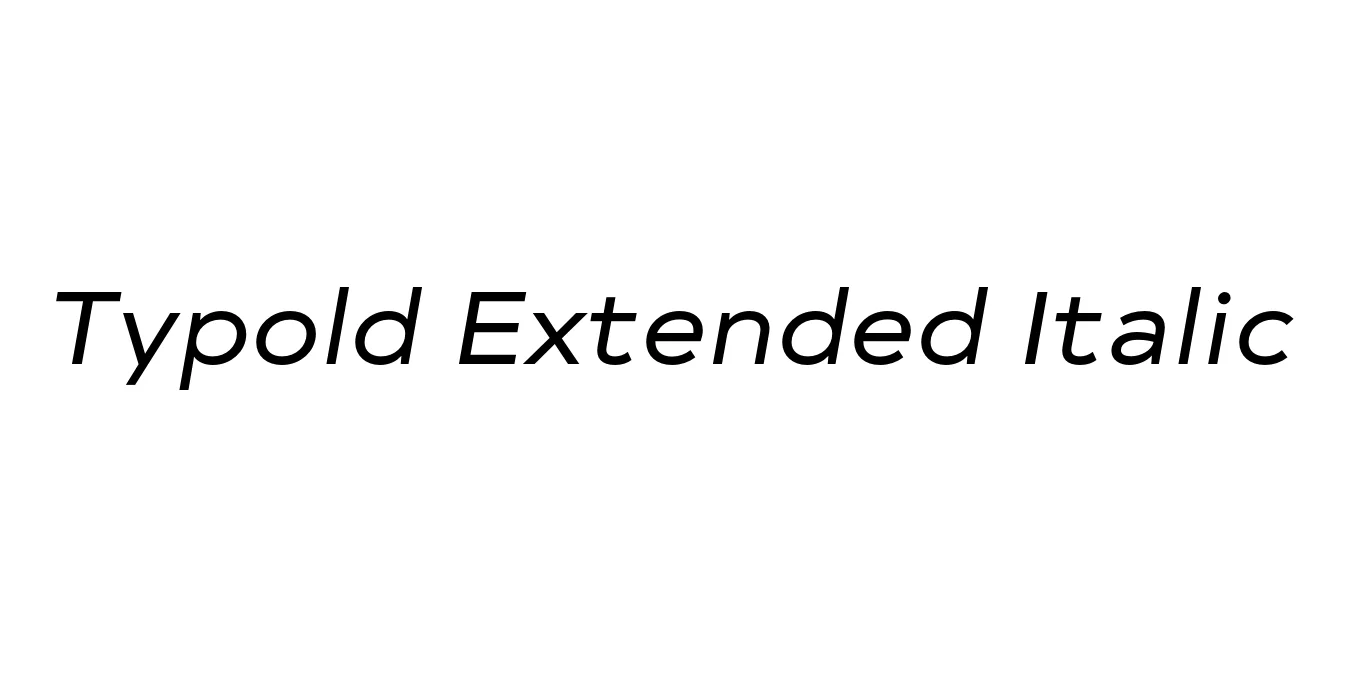
Typold Extended Italic
Designed by Jonathan Hill
Typold Extended Italic is a contemporary sans-serif typeface designed by Jonathan Hill and published through The Northern Block foundry. It represents a modern refinement of the geometric sans-serif genre, focusing on technical precision and geometric clarity. The "Extended" width provides a sense of luxury and space, while the italicized slant adds a dynamic, forward-moving energy that is both sophisticated and highly legible in various digital environments.
This font was developed as part of a larger, versatile family aimed at meeting the demands of high-end corporate branding and modern interface design. By balancing mathematical construction with subtle humanistic touches, Typold Extended Italic offers a distinctive aesthetic that excels in large-scale headlines and editorial layouts. Its wide stance makes it particularly effective for conveying authority and modernity in minimalist design environments where visual impact is paramount.
Typold Extended Italic Best Uses
Perfect for bold, wide titles that need to command attention.
Ideal for tech and luxury brands seeking a modern, stable identity.
Great for landing page headers and hero sections.
Suitable for magazine spreads and large-scale pull quotes.